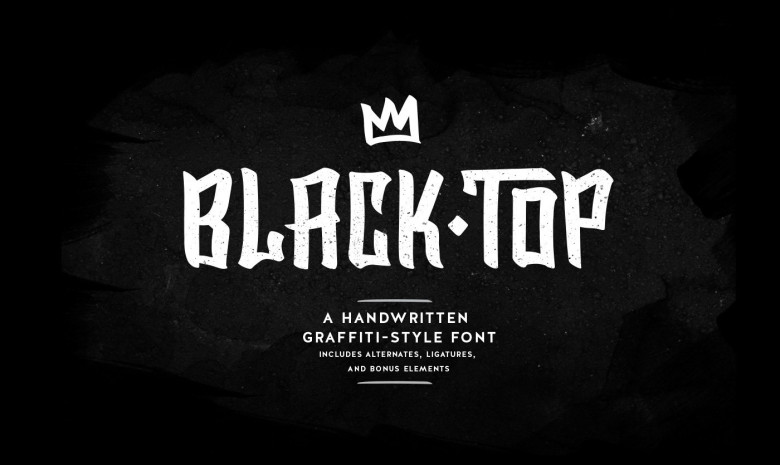
BlackTop Font
A handwritten graffiti style font. Introducing BlackTop Font! BlackTop designed and shared by SixAbove Studios. Rugged and legible, it brings bold characteristics of street art to build some breakdown into your design beats.